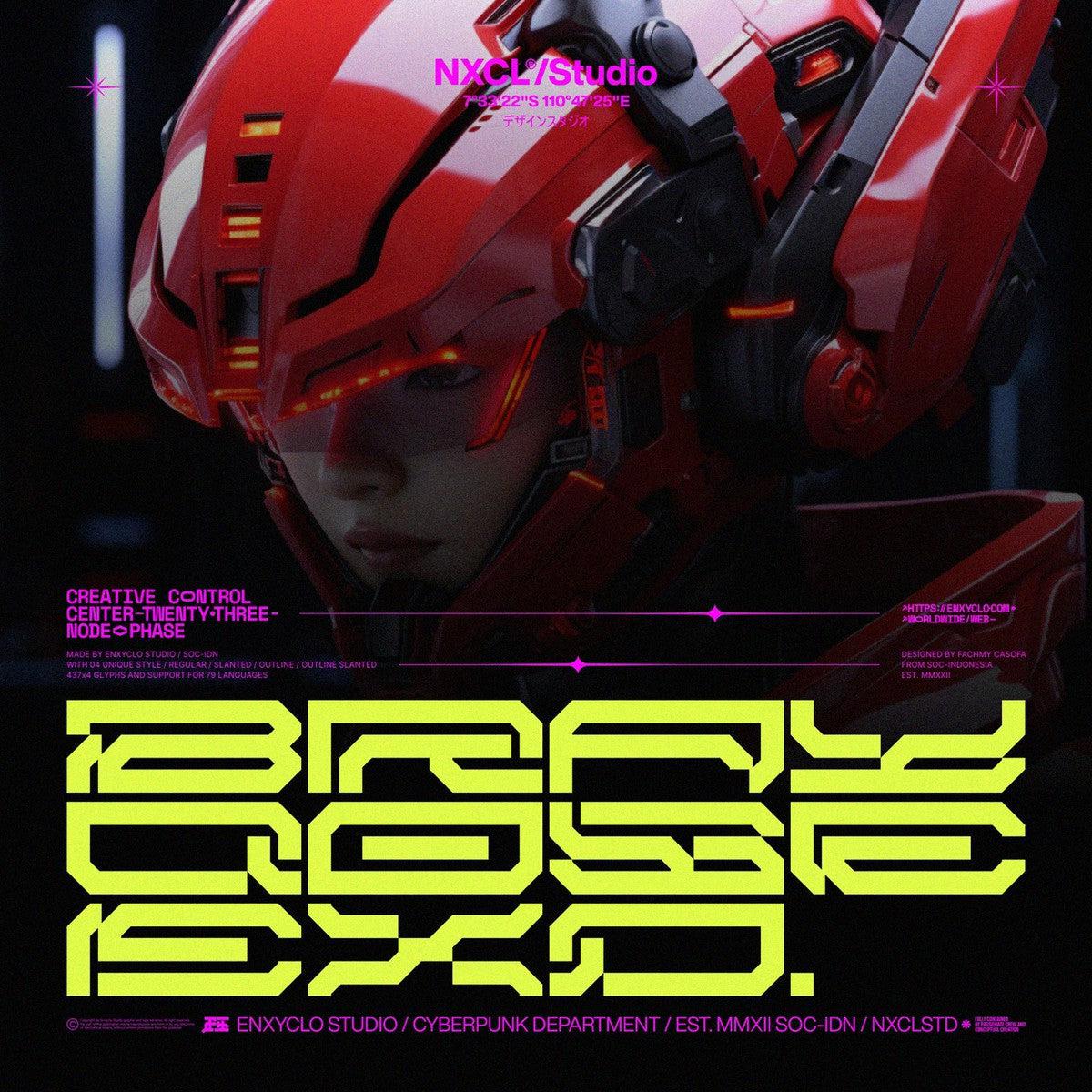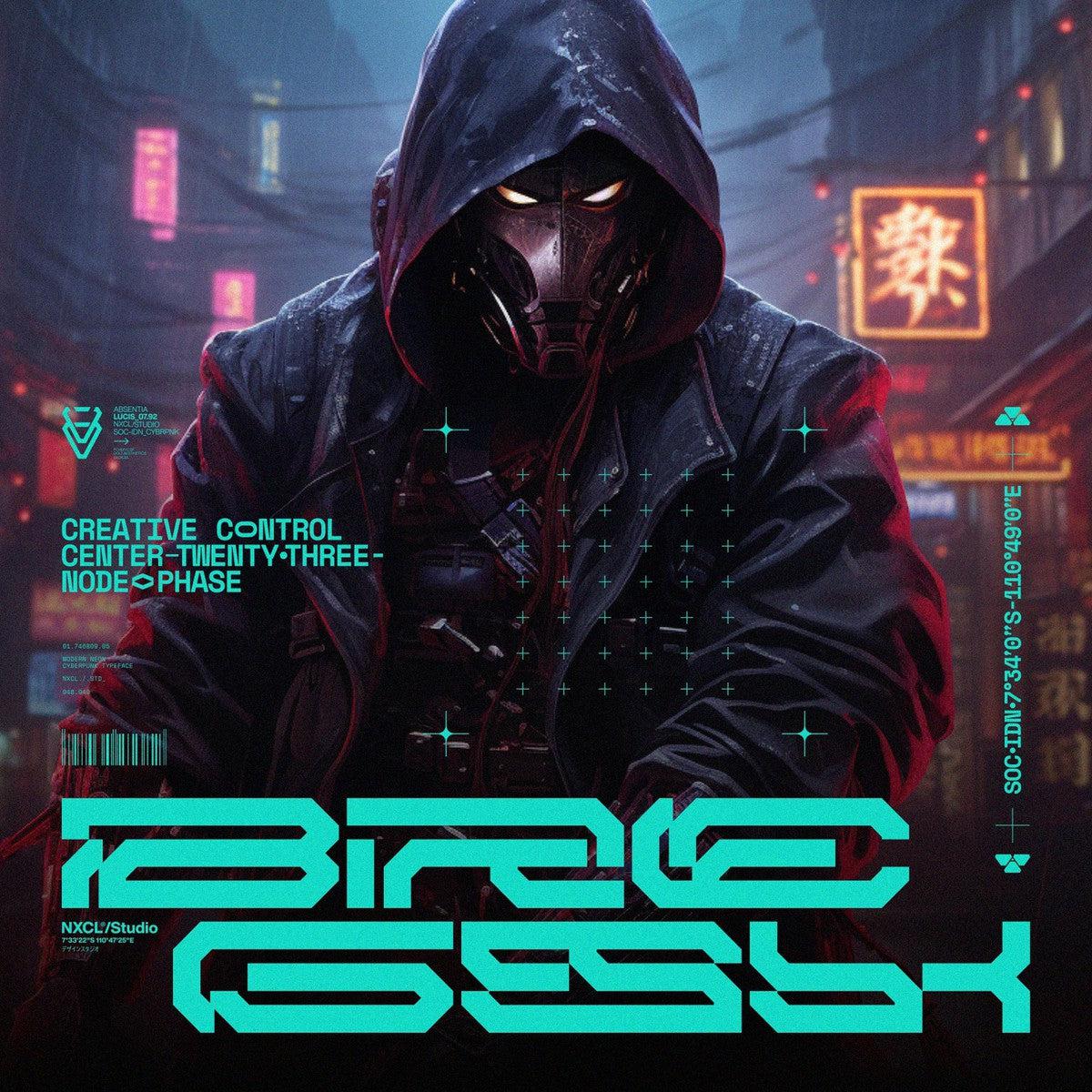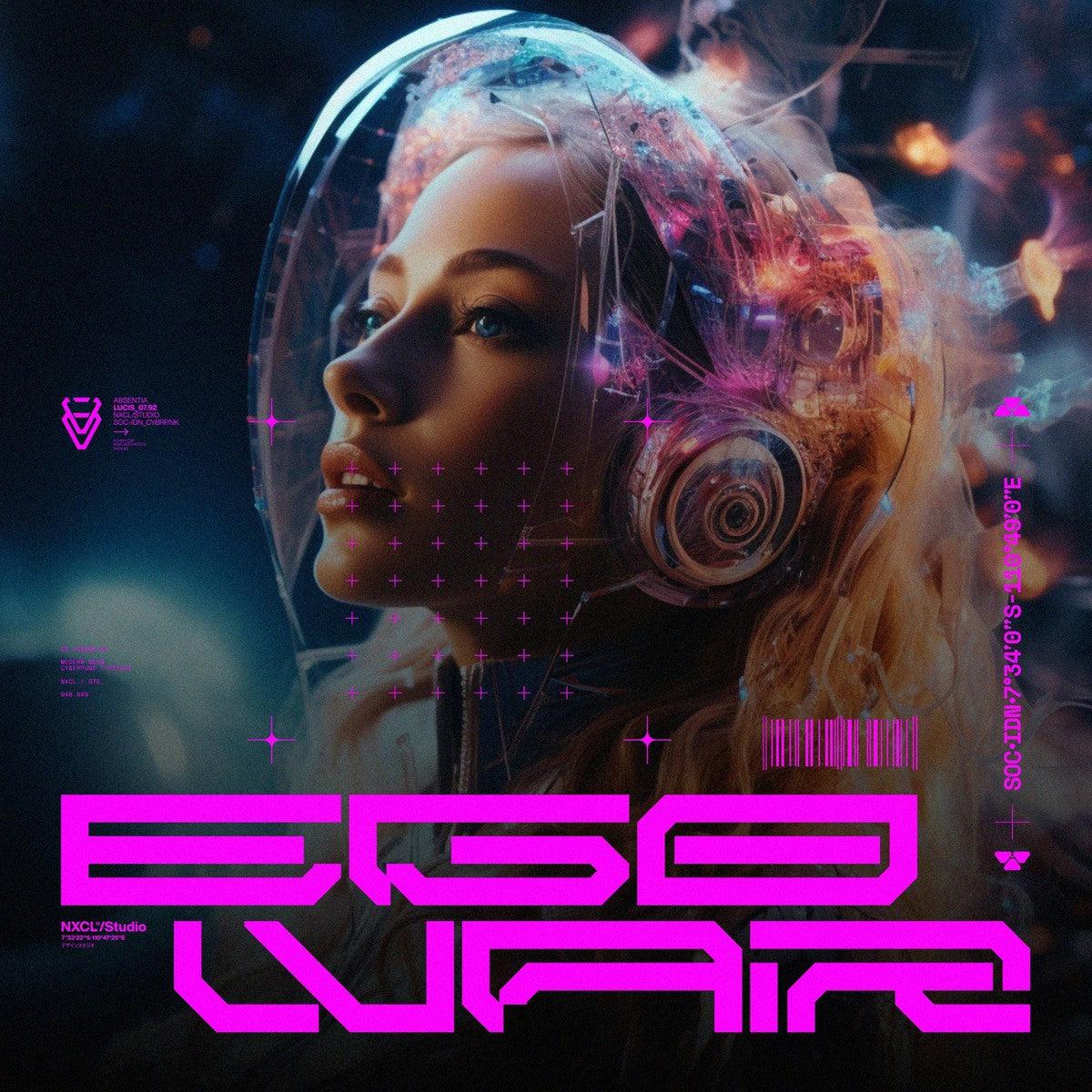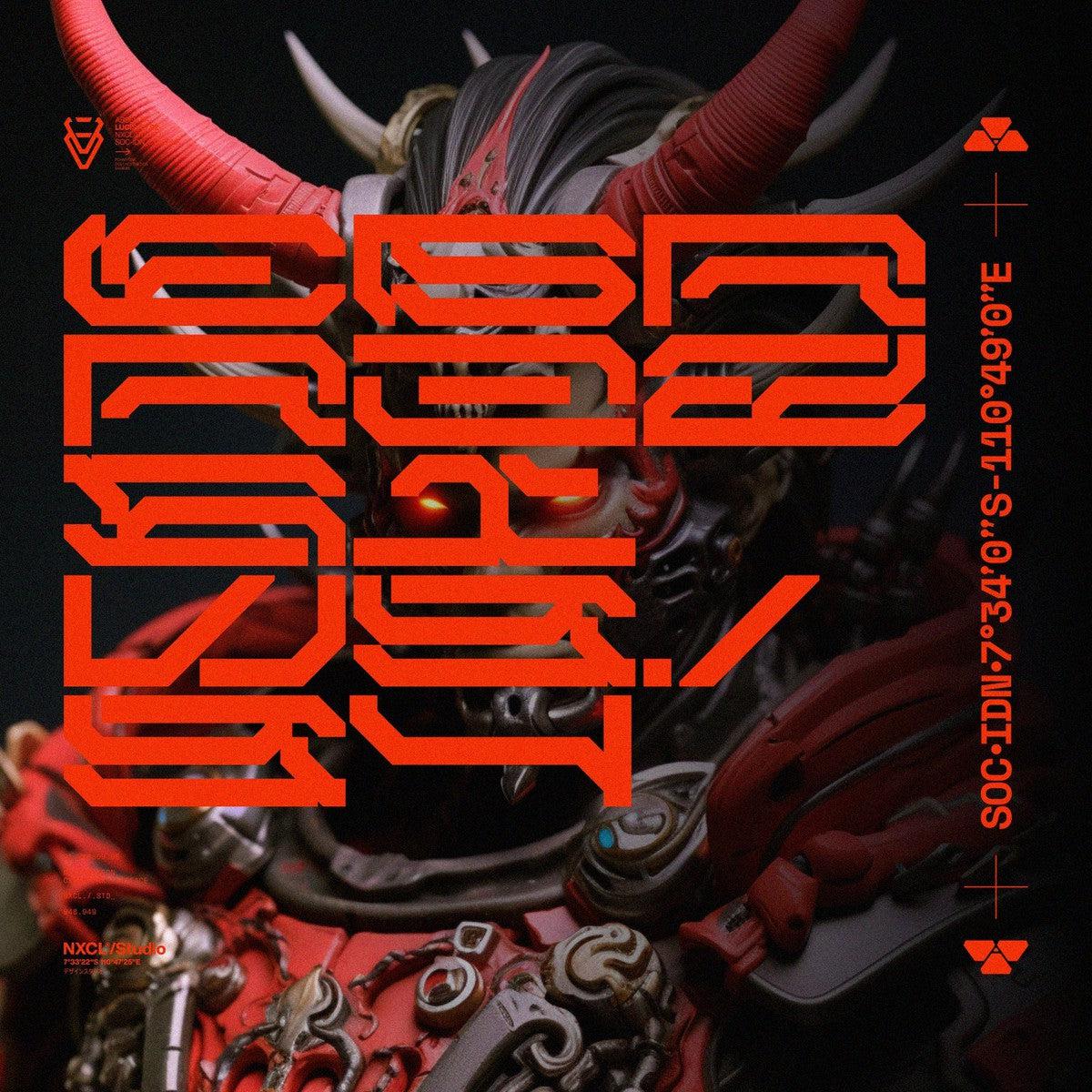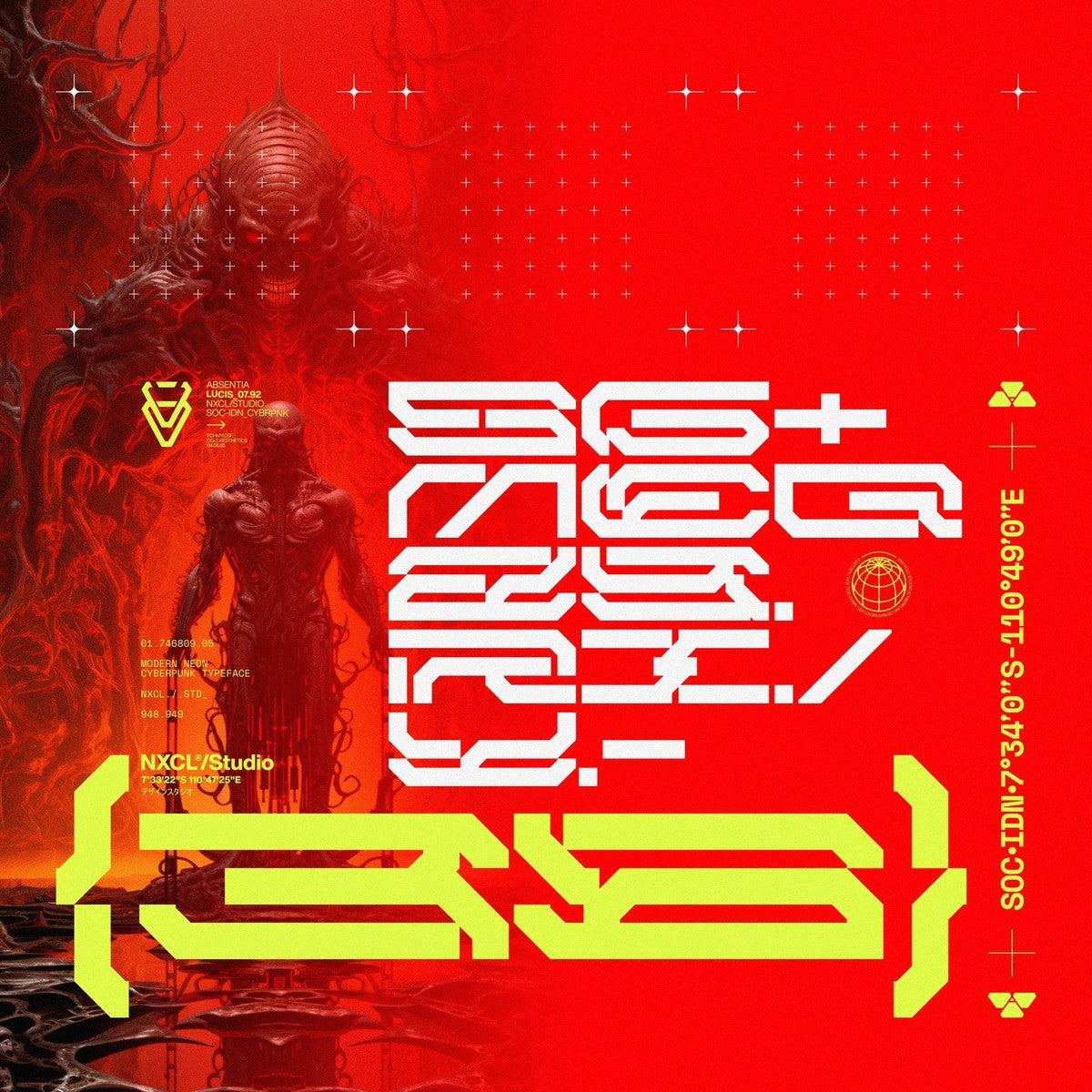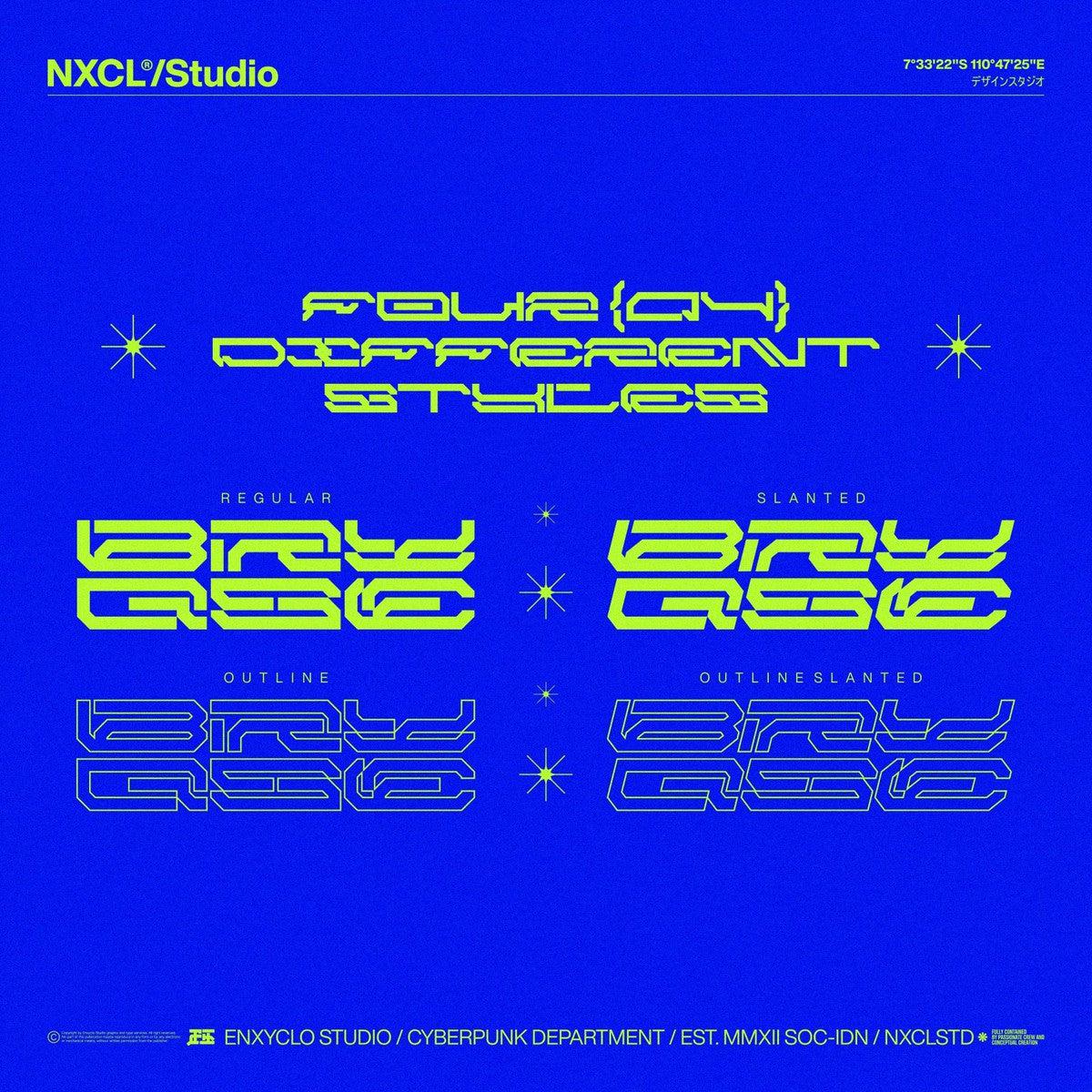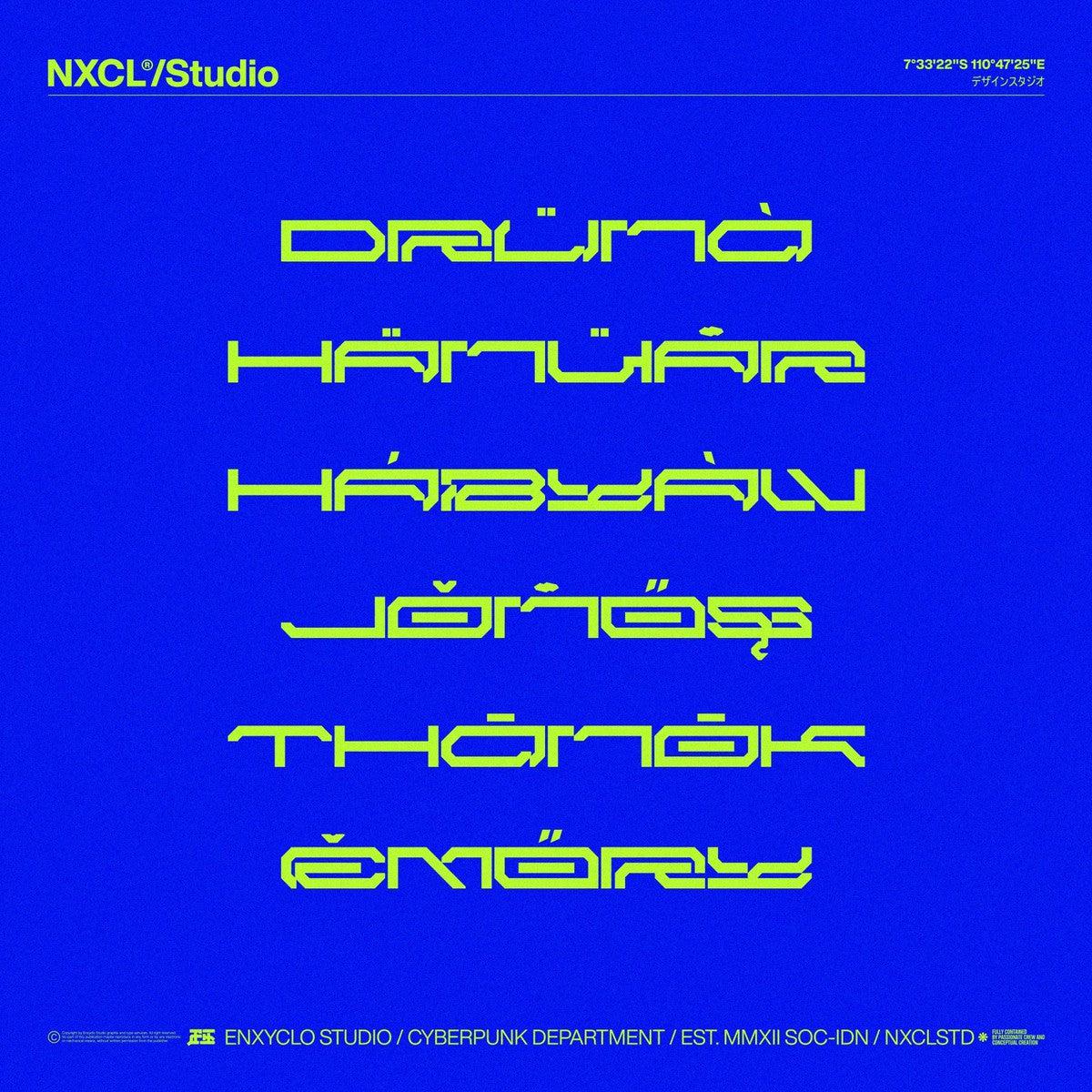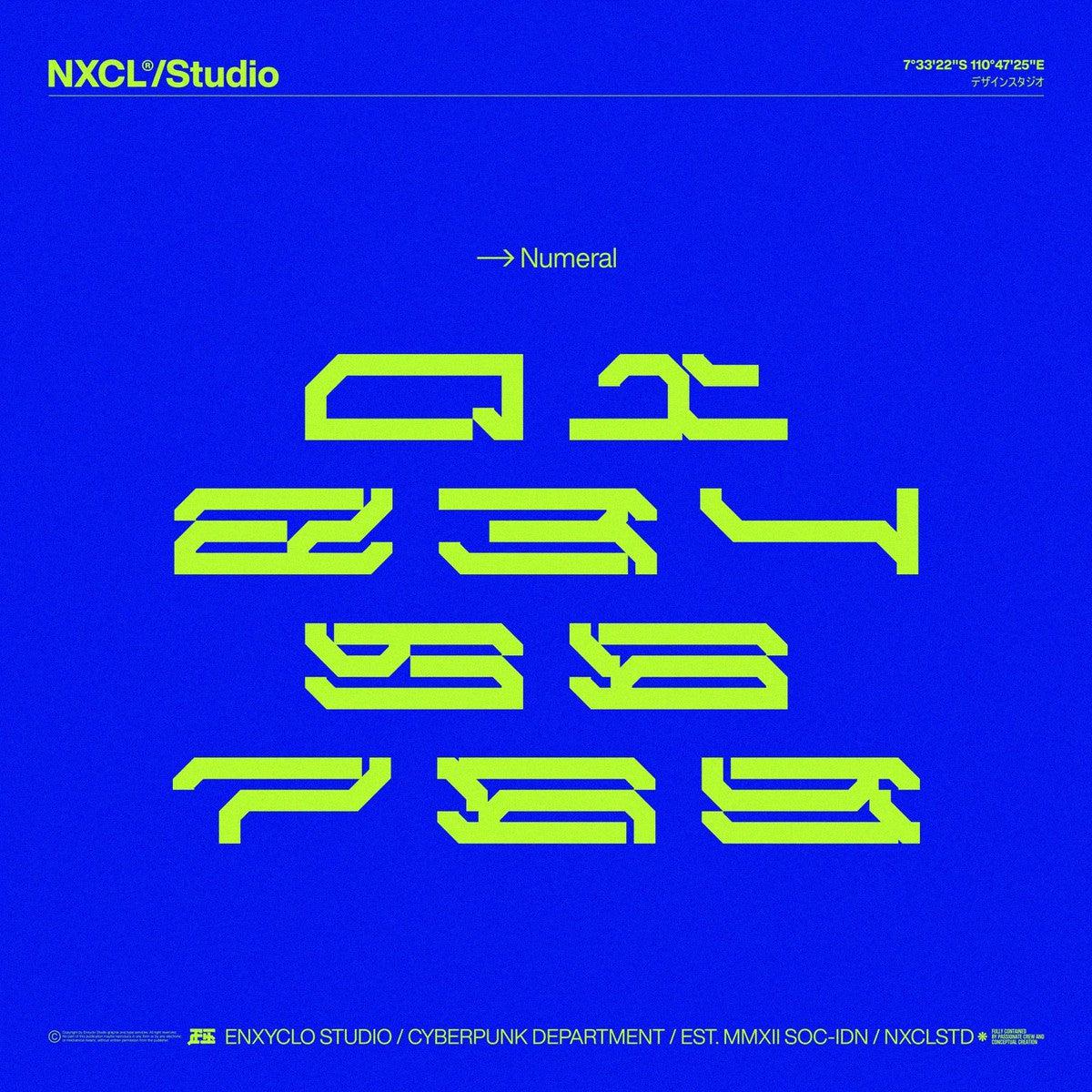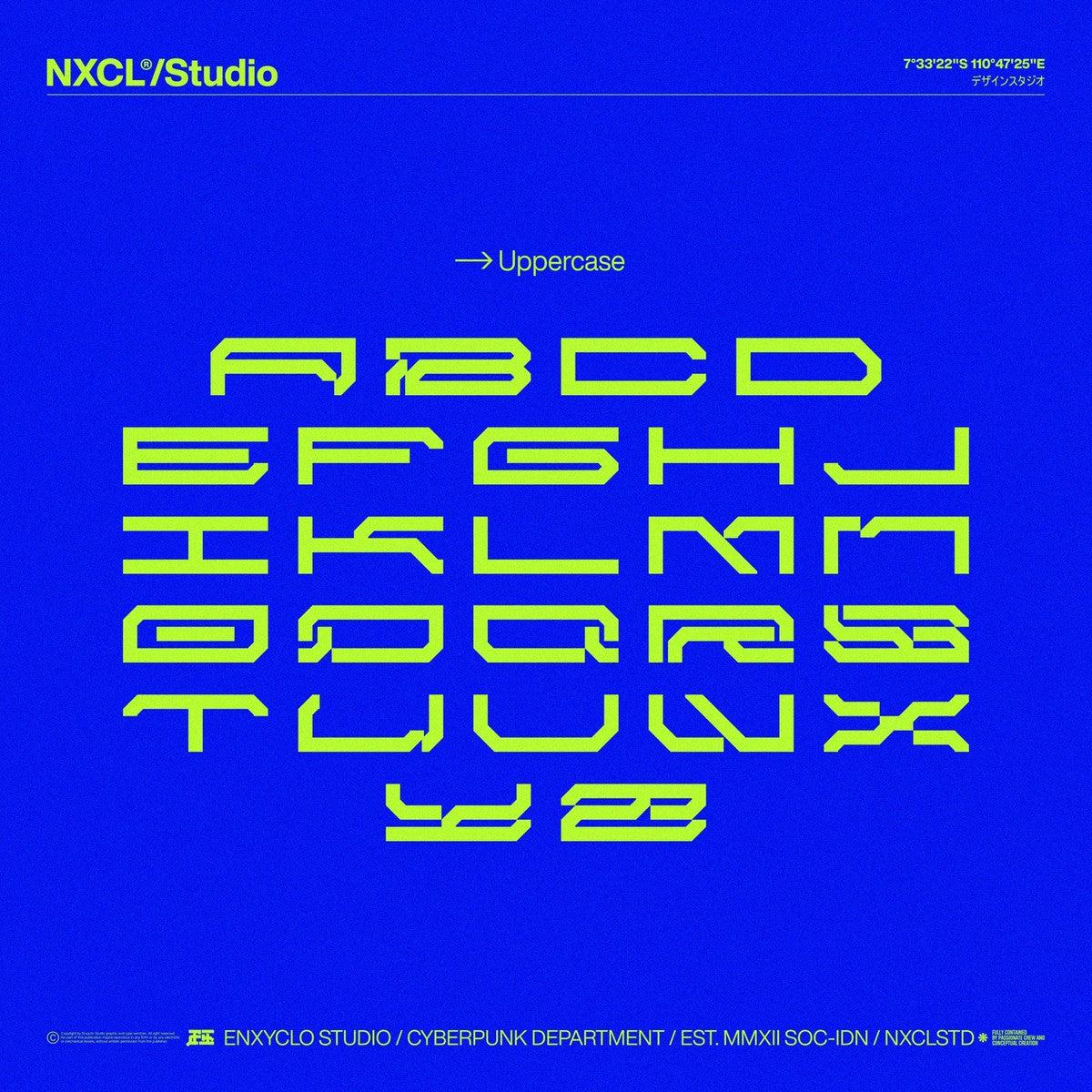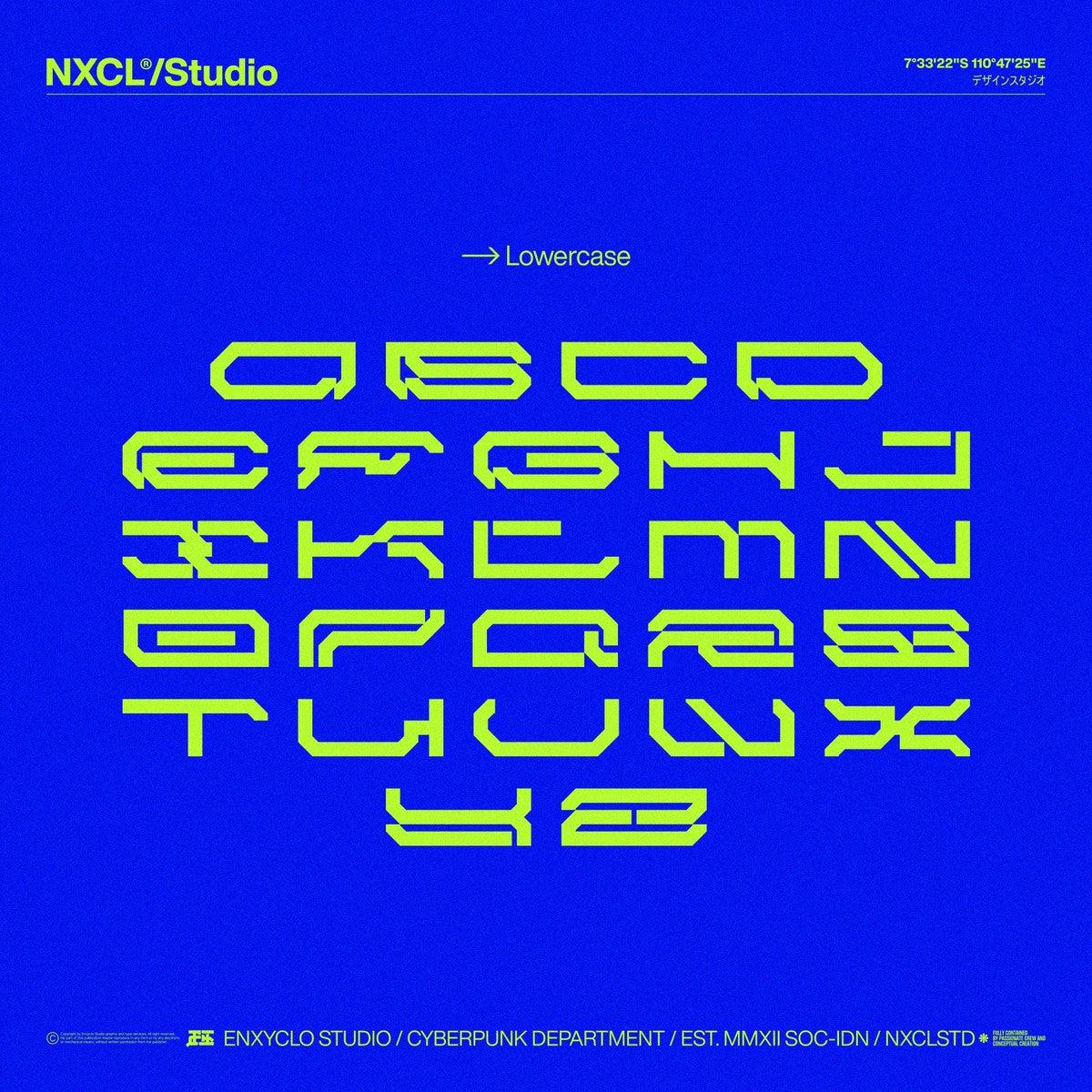
NCL BRAYQOSE EXPANDED - サイバーパンク未来的なフォント
The NCL BRAYQOSE EXPANDED is a cyberpunk futuristic font that offers modern aesthetics. It comes in four styles: Regular, Slanted, Outline, and Outline Slanted, and includes 1748 Glyphs in total. The font supports True Type Font (TTF), Open Type Font (OTF), and Web Open Font Format (WOFF1 & WOFF2), and is compatible with 79 languages.
Ideal for modern cyberpunk and futuristic design projects. Perfect for websites, posters, logos, and branding materials, ensuring a striking and innovative visual impact.